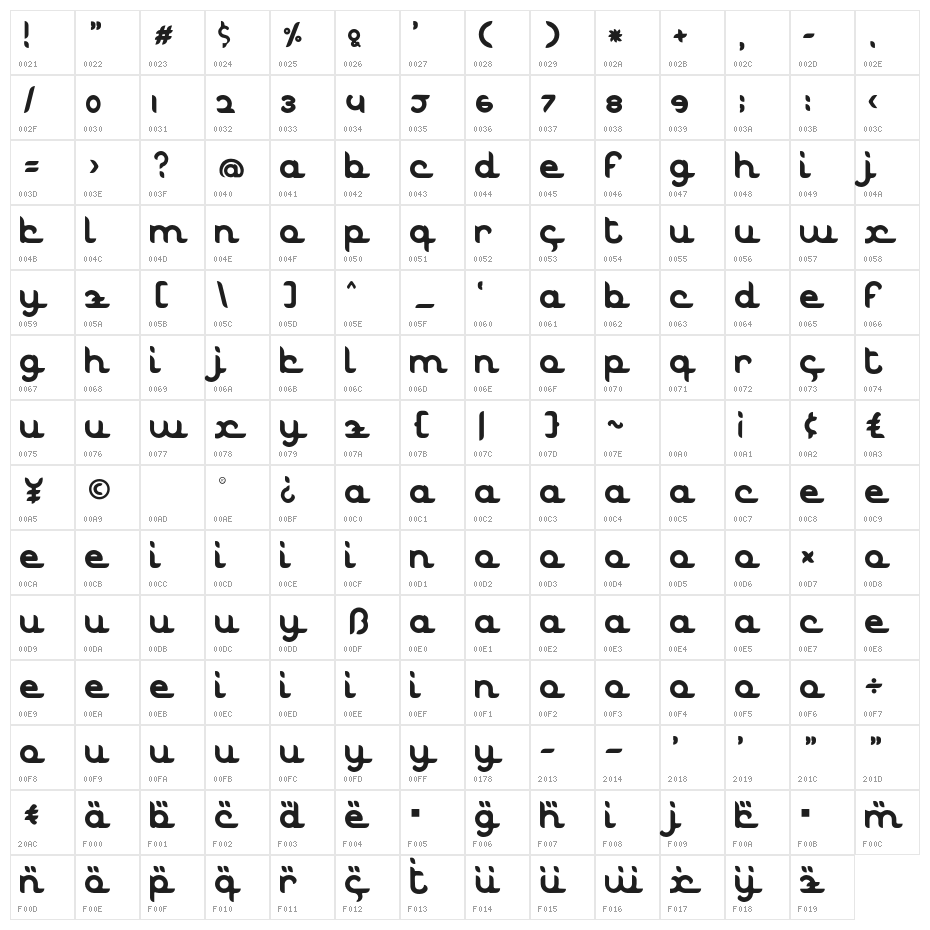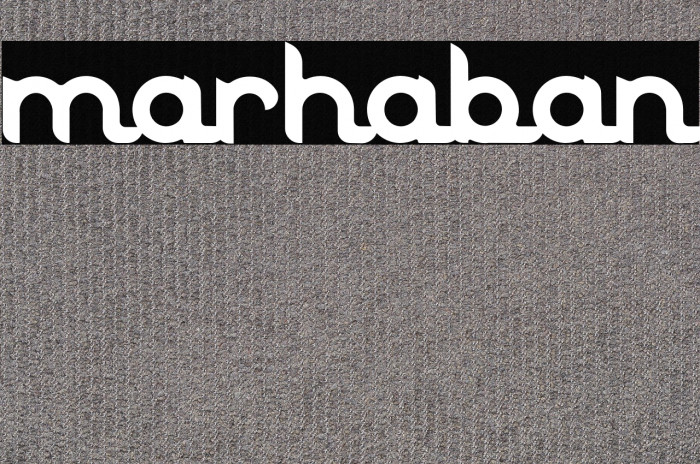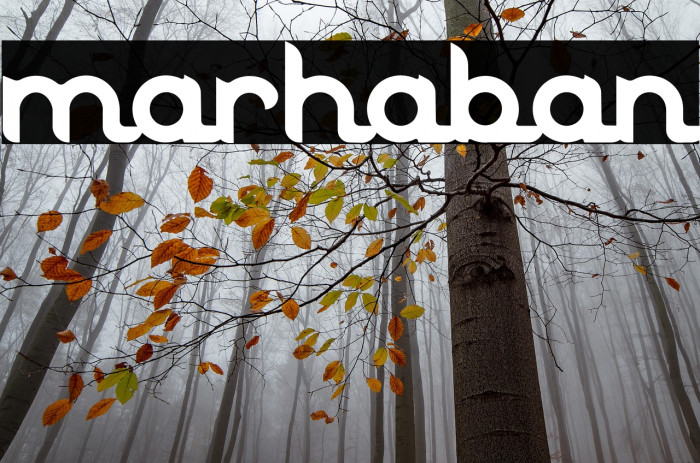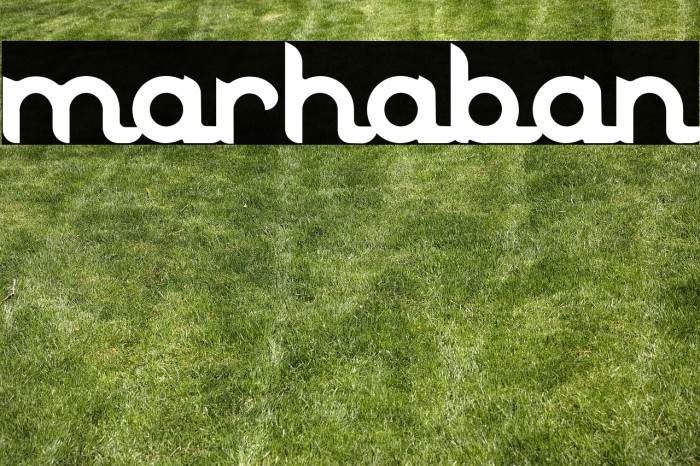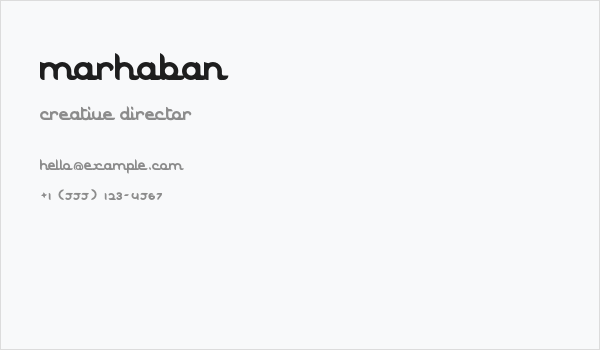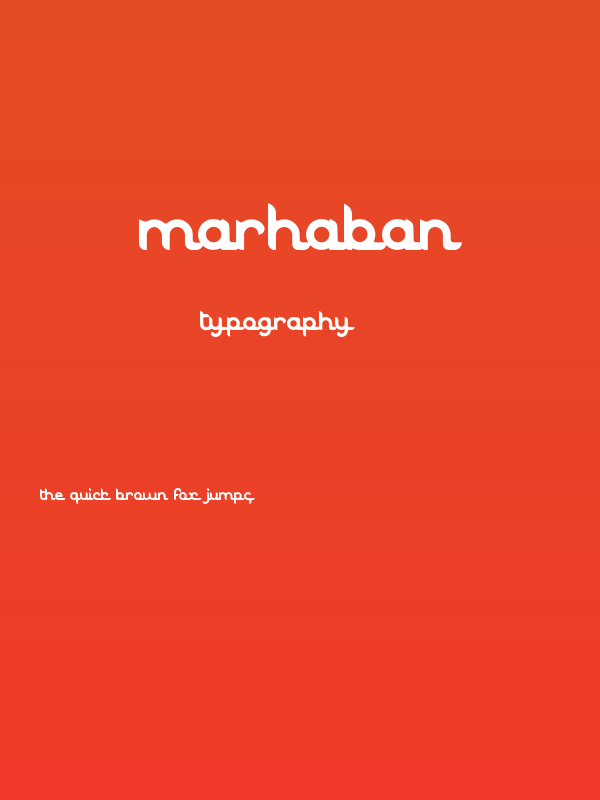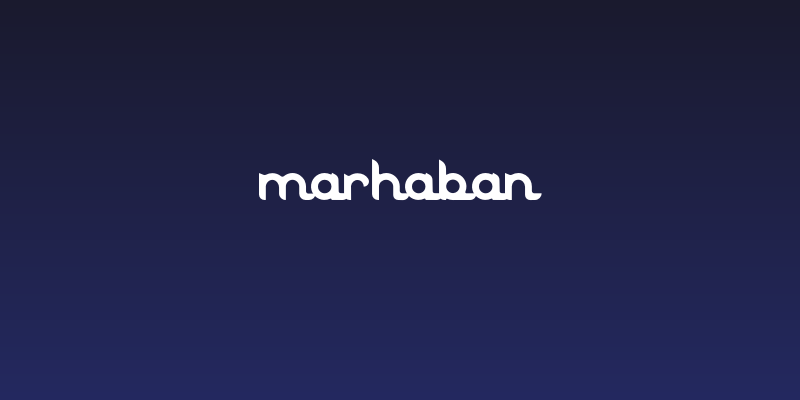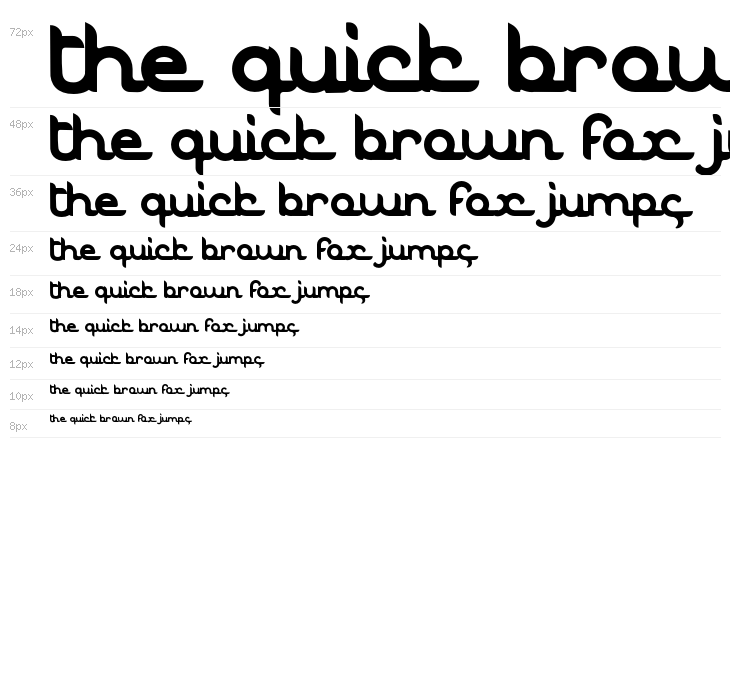
Marhaban Font
Marhaban Description
This font features a bold and playful design with rounded, thick strokes that create a sense of warmth and friendliness. The characters are interconnected, giving it a cohesive and flowing appearance. The lowercase letters have a unique style with some characters extending slightly below the baseline, adding a touch of whimsy. The numerals are equally bold and rounded, maintaining consistency with the overall design. Special characters are designed with the same playful aesthetic, making the font suitable for creative and informal applications.
| Proposed Projects | Ideal for children's books, playful branding, creative posters, and informal invitations. |